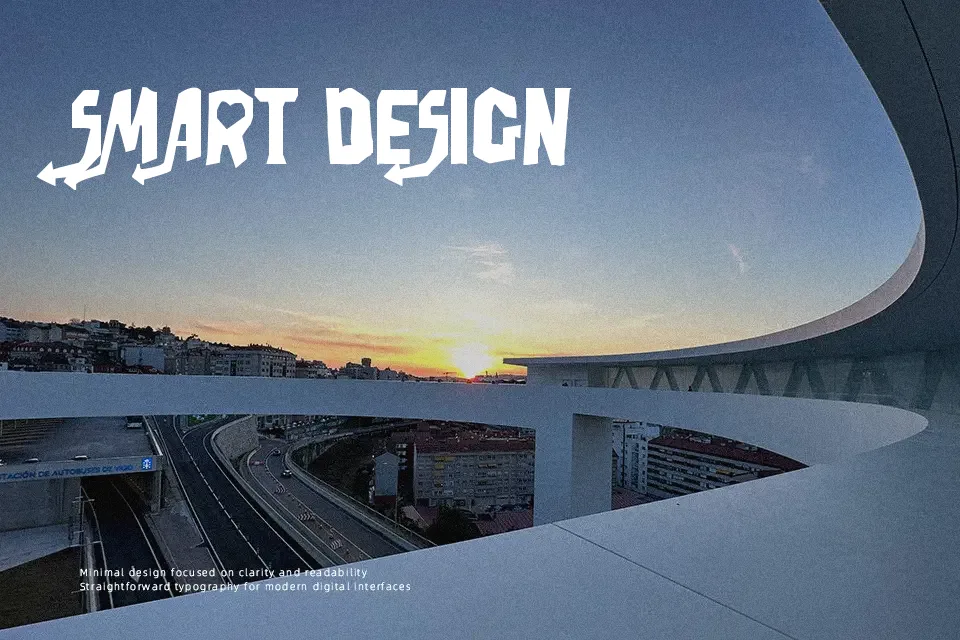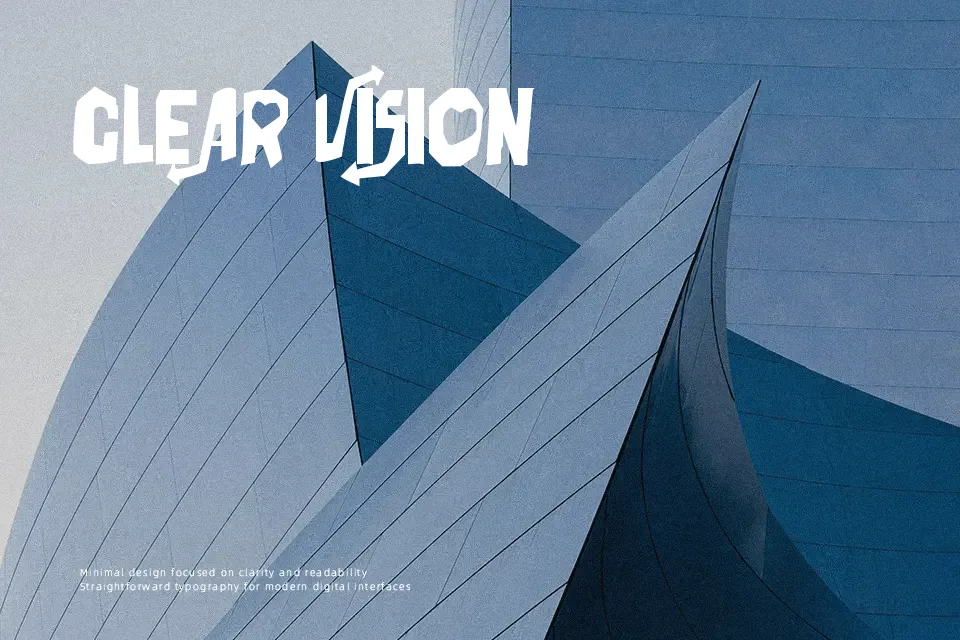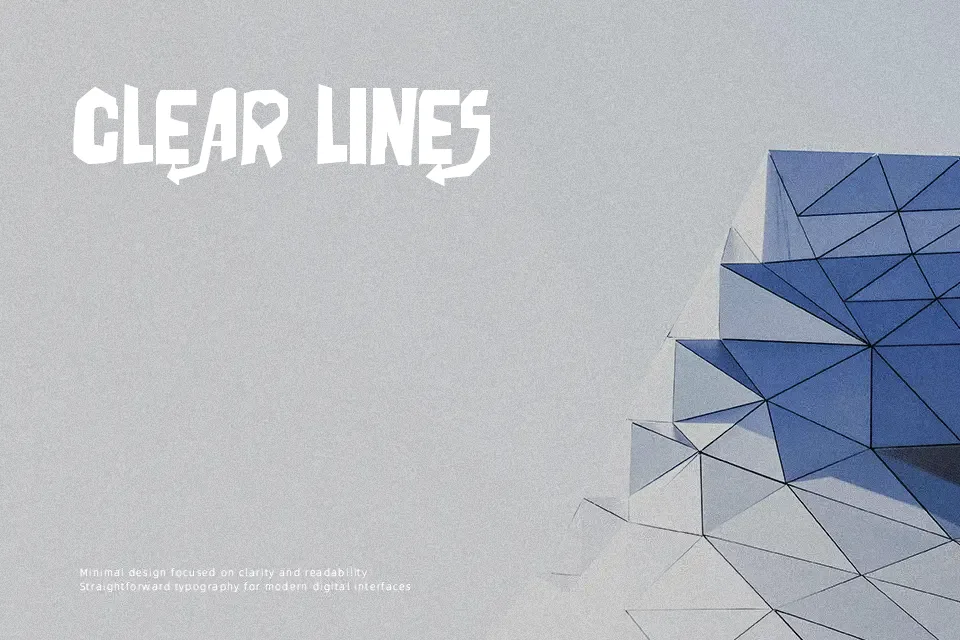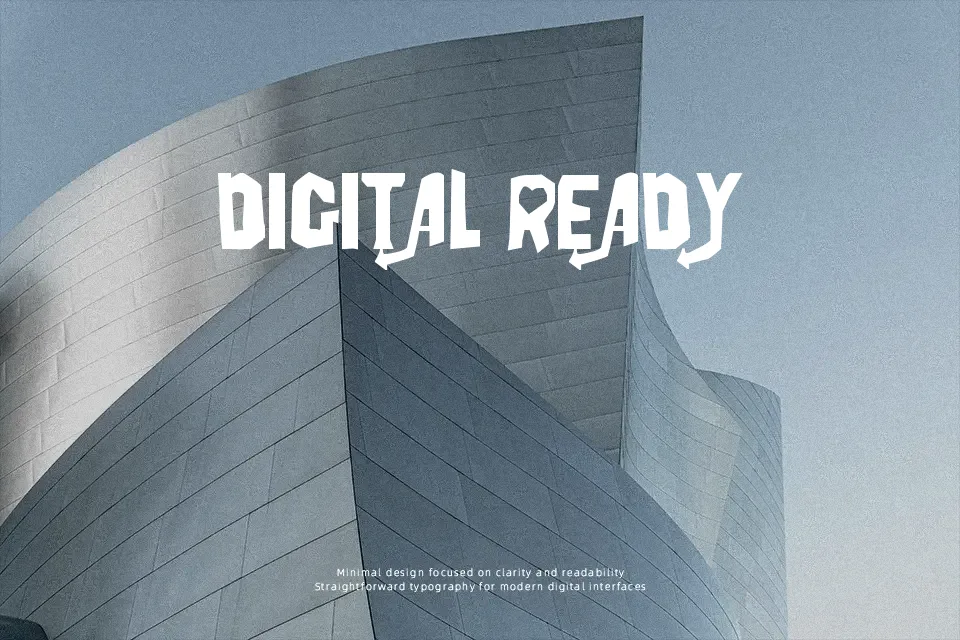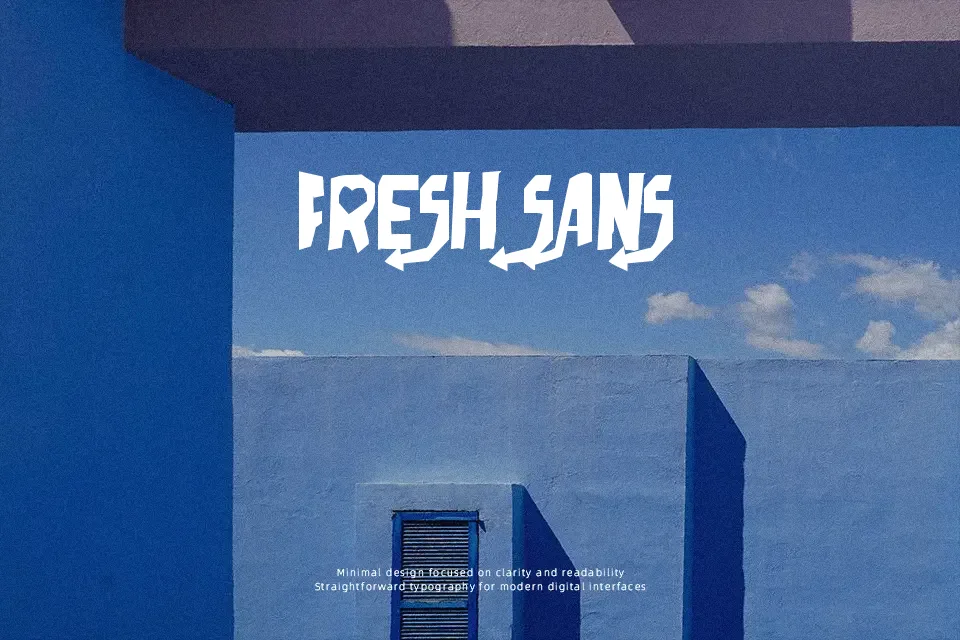
Powerpuff Girls Z Font
The Powerpuff Girls Z Font establishes a commanding presence through its thick, blocky structure and striking geometric strokes. The letterforms mix sharp, dramatic angles with playful curves, resulting in a highly stylized cartoon aesthetic. The bold stroke weight and tight spacing ensure that individual characters stand out beautifully in short display settings. The heavy proportions help maintain clarity in larger headlines and vibrant promotional graphics. However, the dense forms and highly stylized terminals reduce comfort during extended reading, making the typeface less suitable for long paragraphs. Ultimately, this design performs best when utilized for high-impact branding or energetic entertainment graphics where immediate visual capture is prioritized over conventional legibility.
animated series branding
children’s toy packaging
comic book sound effects
youth apparel graphics
corporate annual reports
Perfect for branding, kids, and logo, with a bold and cartoon style.